Apex
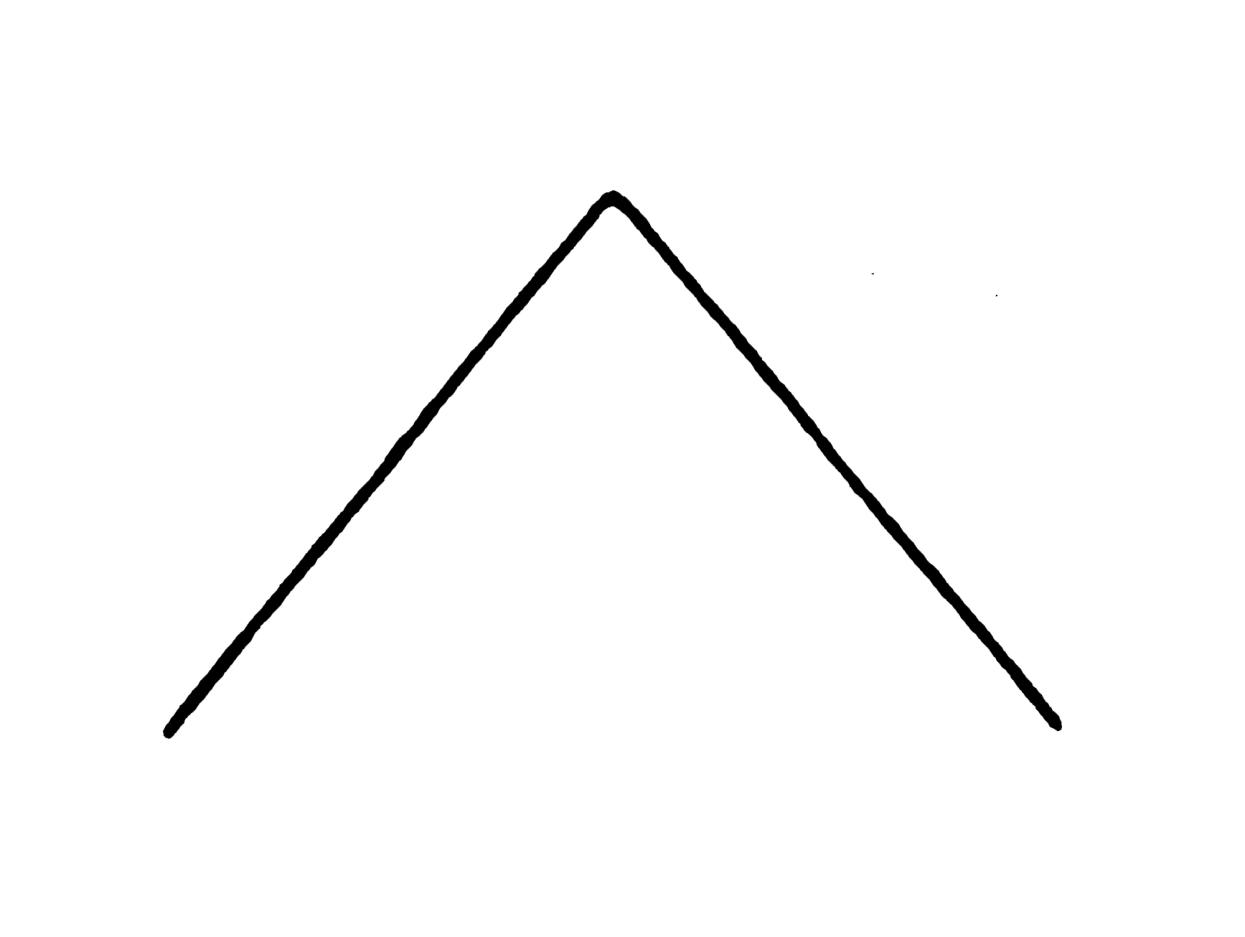
The apex is the point on the top of a letter where two stems meet, such as the top of the letter A or the middle of w.
We also find the term “vertex,” referring to the top of A as well, but also to other pointed parts such as the base of V or the intersection of K when/if its diagonals don’t meet the vertical stem.